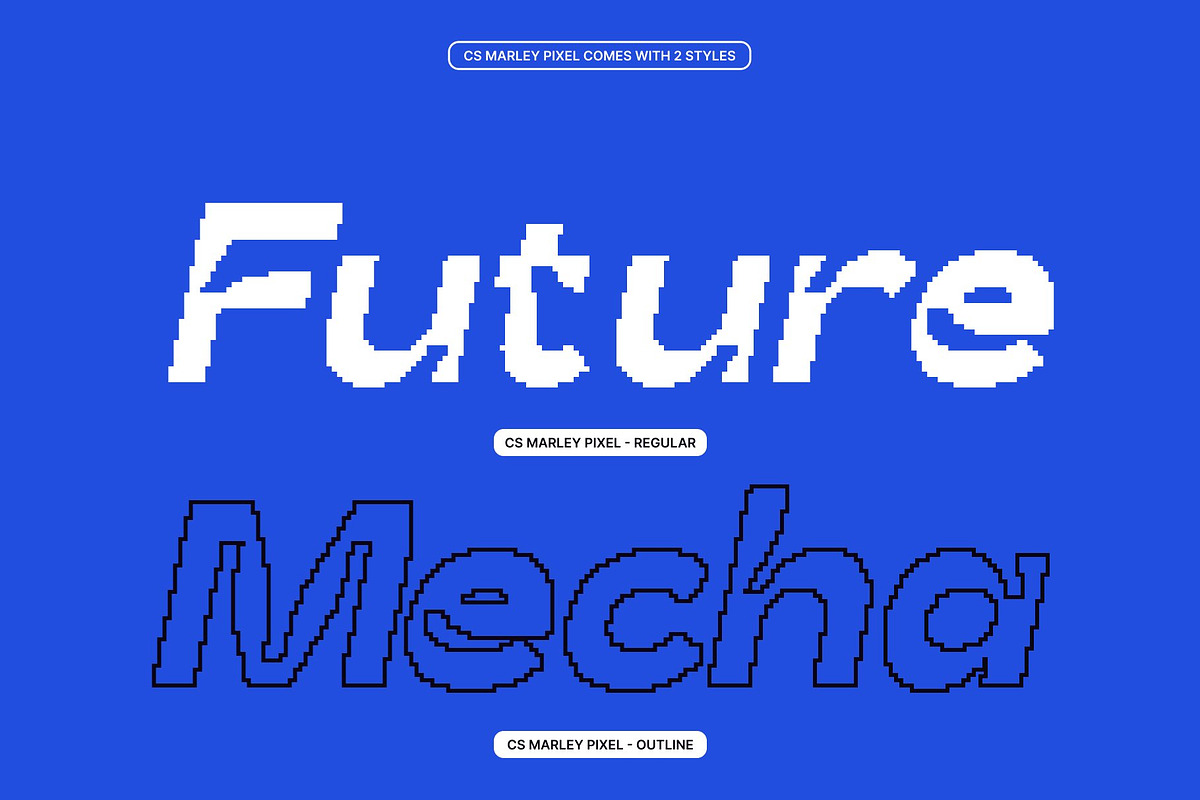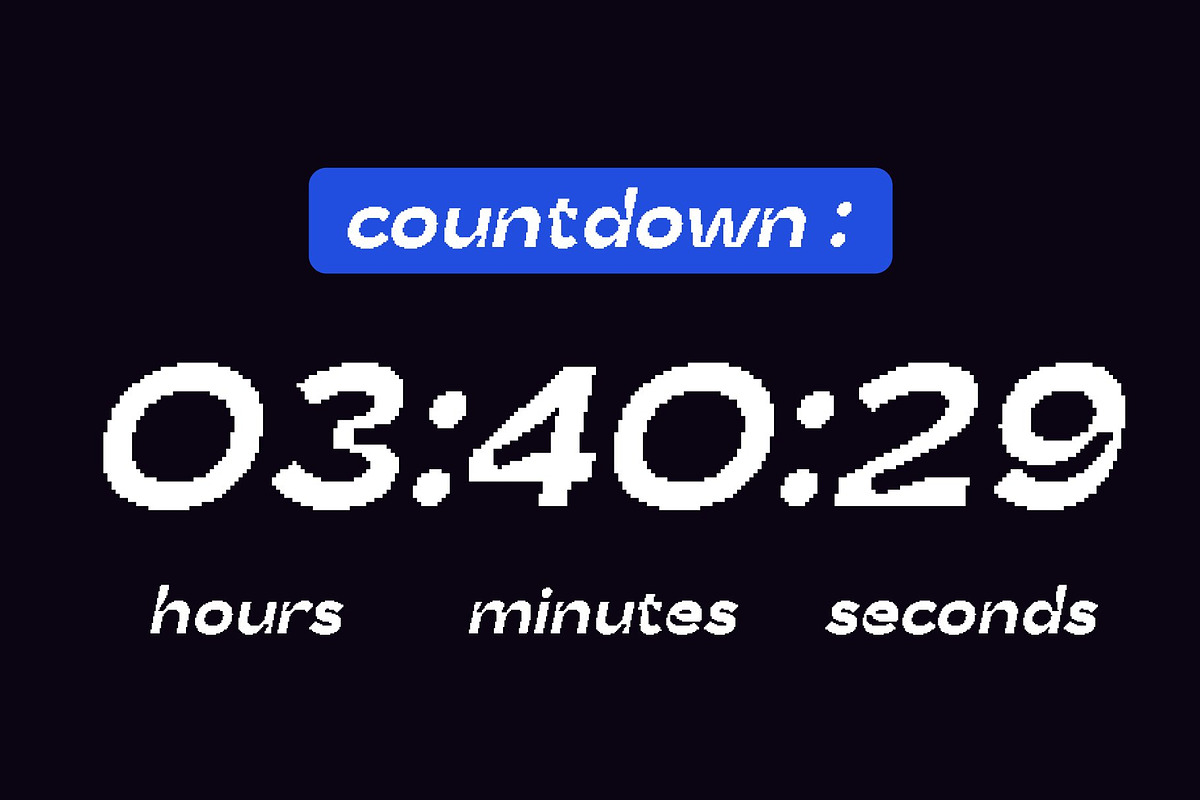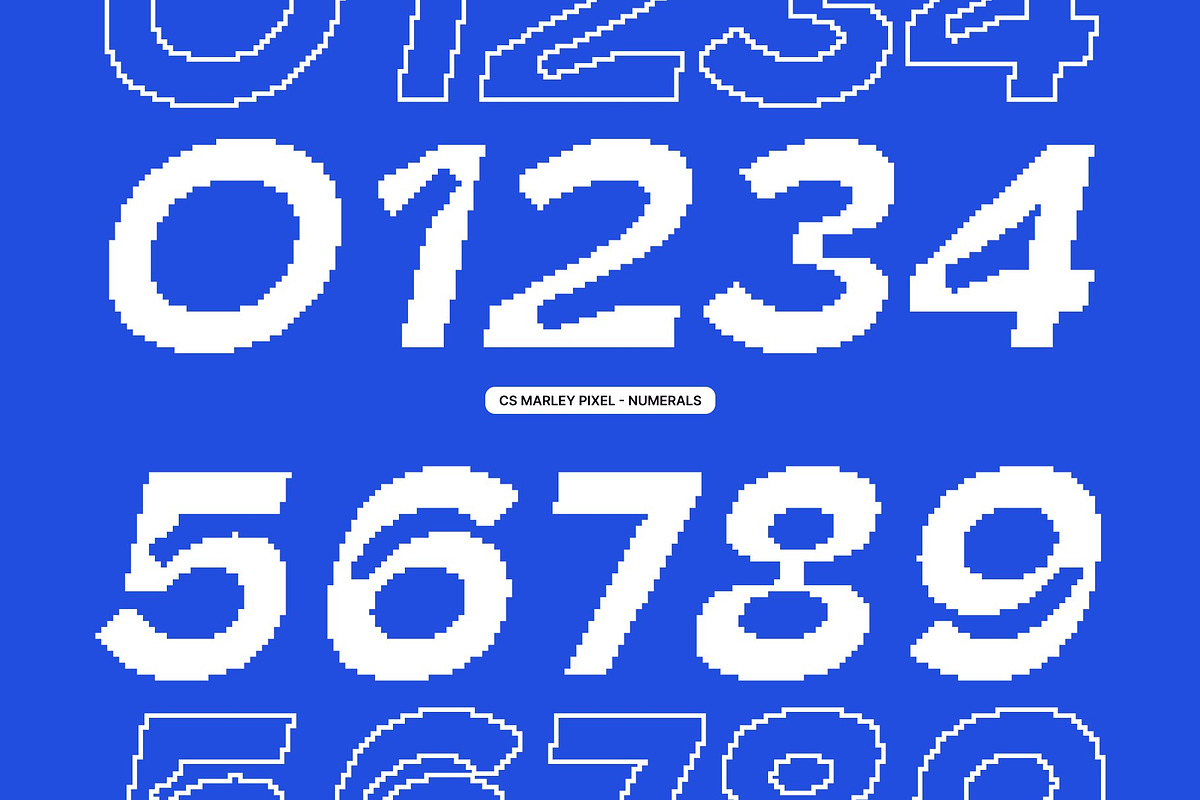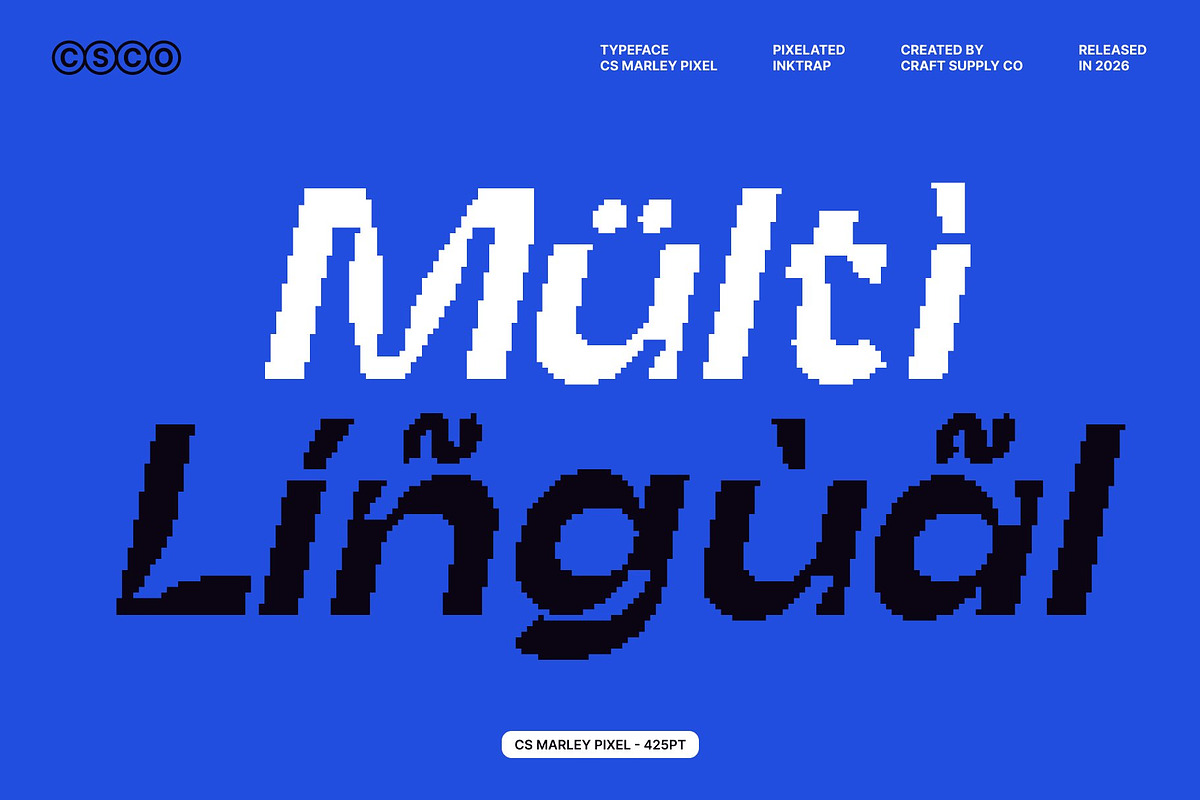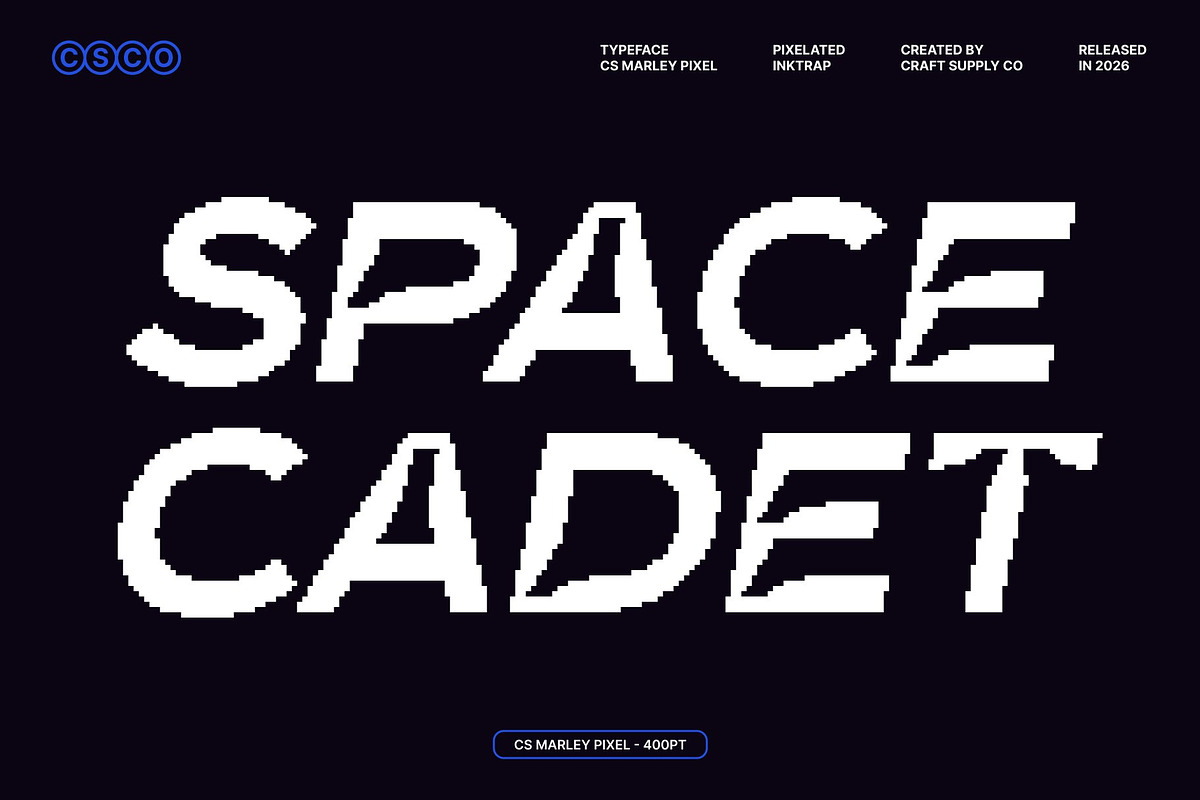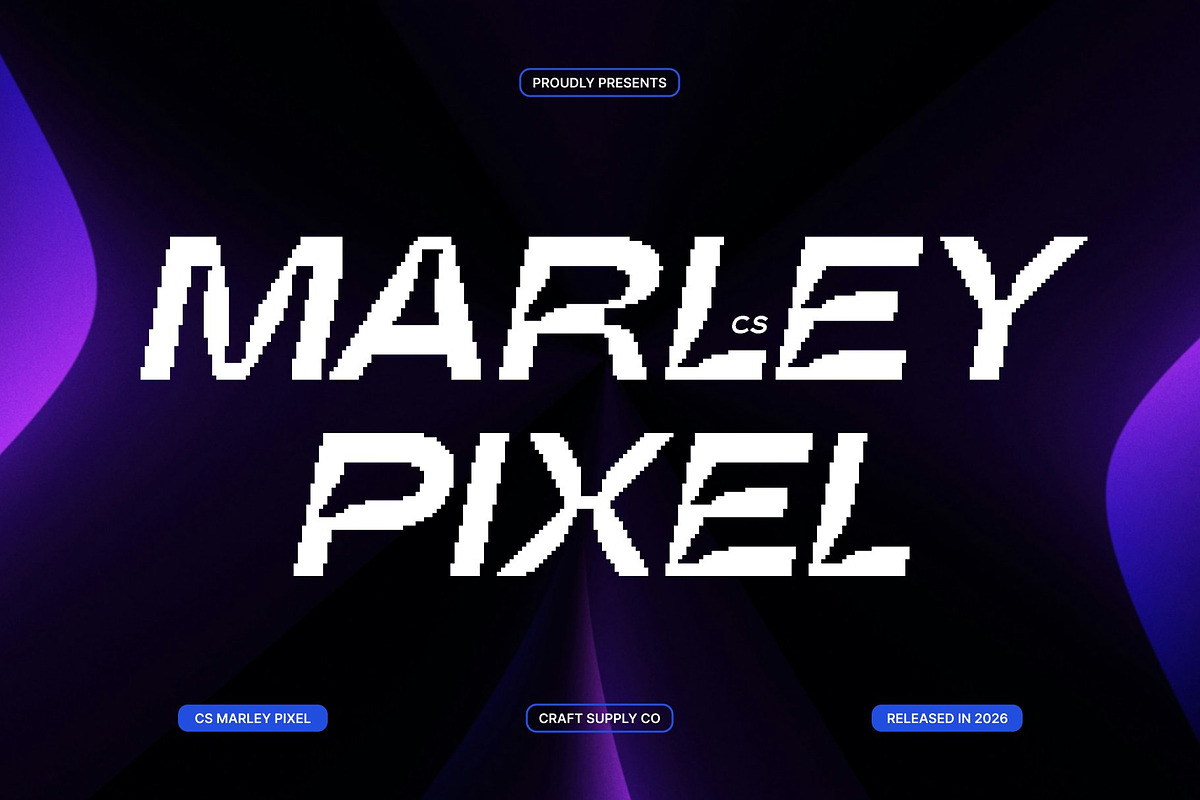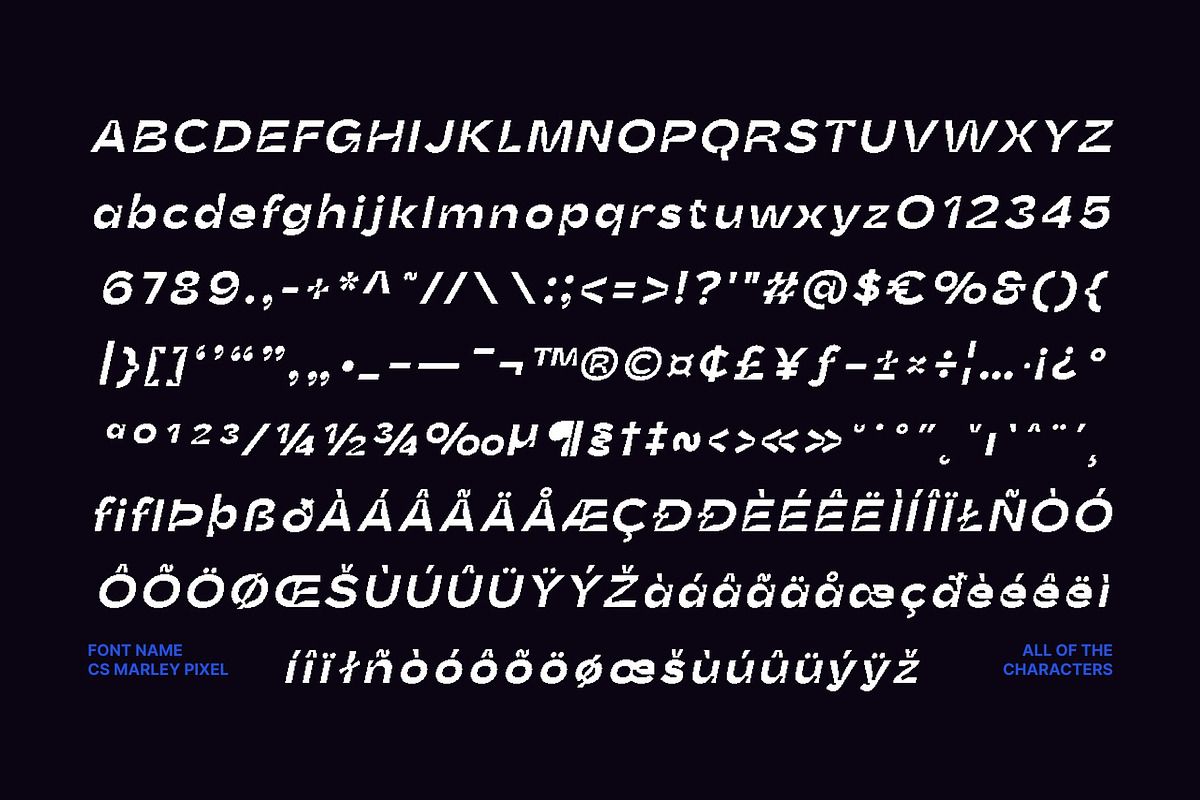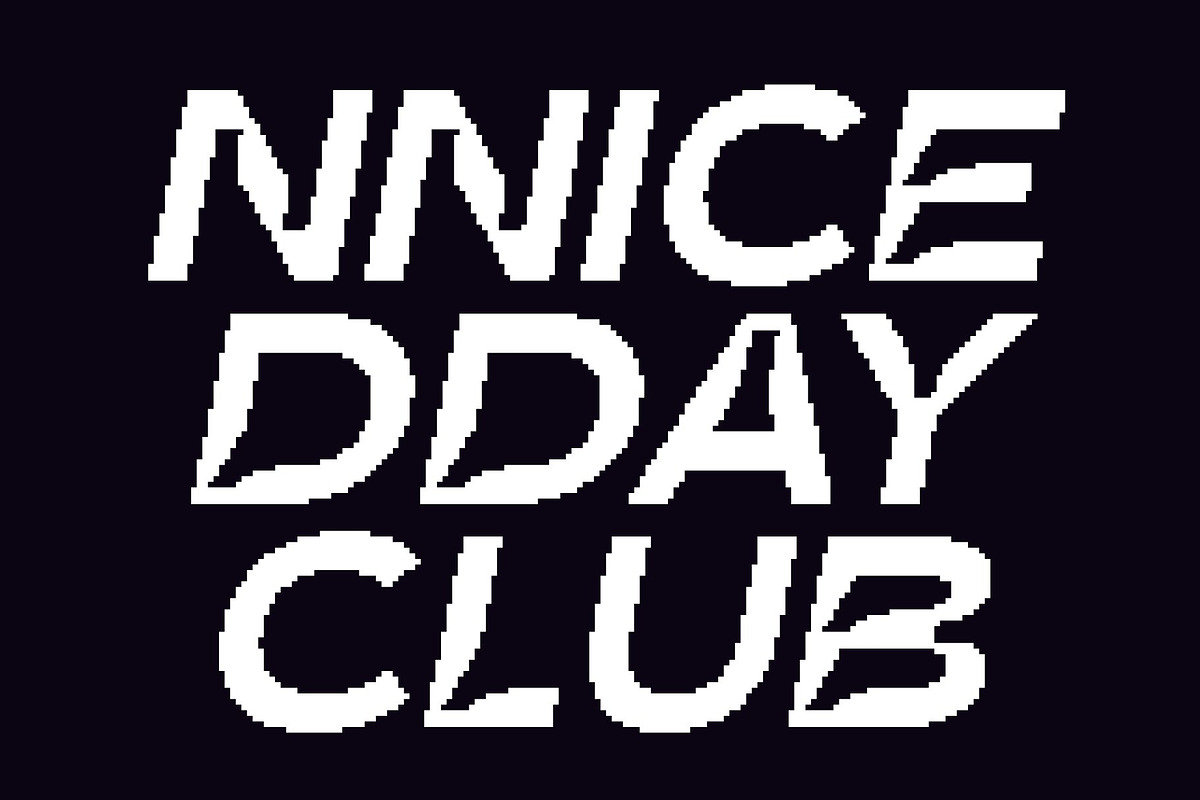
CS Marley Pixel
CS Marley Pixel – Inktrap Font: Expressive Characters with a Funky Twist
Modern Pixel Sans-Serif Design This is a modern sans-serif font reinterpreted through a bold pixel-based structure. Its clean and contemporary letterforms are combined with distinctive inktrap-inspired details, creating a unique typographic style that feels expressive, playful, and visually engaging. The bitmap construction adds a retro-digital edge while maintaining a modern design sensibility.
Pixel Inktrap Features for Added Character The inktrap elements in this font are translated into sharp pixel cuts and angular notches that emphasize corners and intersections. These details enhance depth and rhythm within each character, giving the font a funky, experimental vibe. The result is a lively typographic texture that stands out and adds personality to any composition.
Ideal for Expressive and Creative Designs Perfect for posters, logos, branding, packaging, music visuals, and digital graphics, thrives in projects that aim to be bold and expressive. Its playful pixel inktraps and strong geometric structure make it an excellent choice for designs that want to break convention and grab attention.
Enhance Your Designs with Funky Pixel Energy With its modern sans-serif foundation, inktrap detailing, and retro pixel flair, this font brings a fresh and creative energy to your work. Whether you’re aiming for a fun, quirky look or an expressive and unconventional aesthetic, this font helps transform ideas into visually striking designs with a memorable digital character.
CS Marley Pixel Regular
CS Marley Pixel Outline